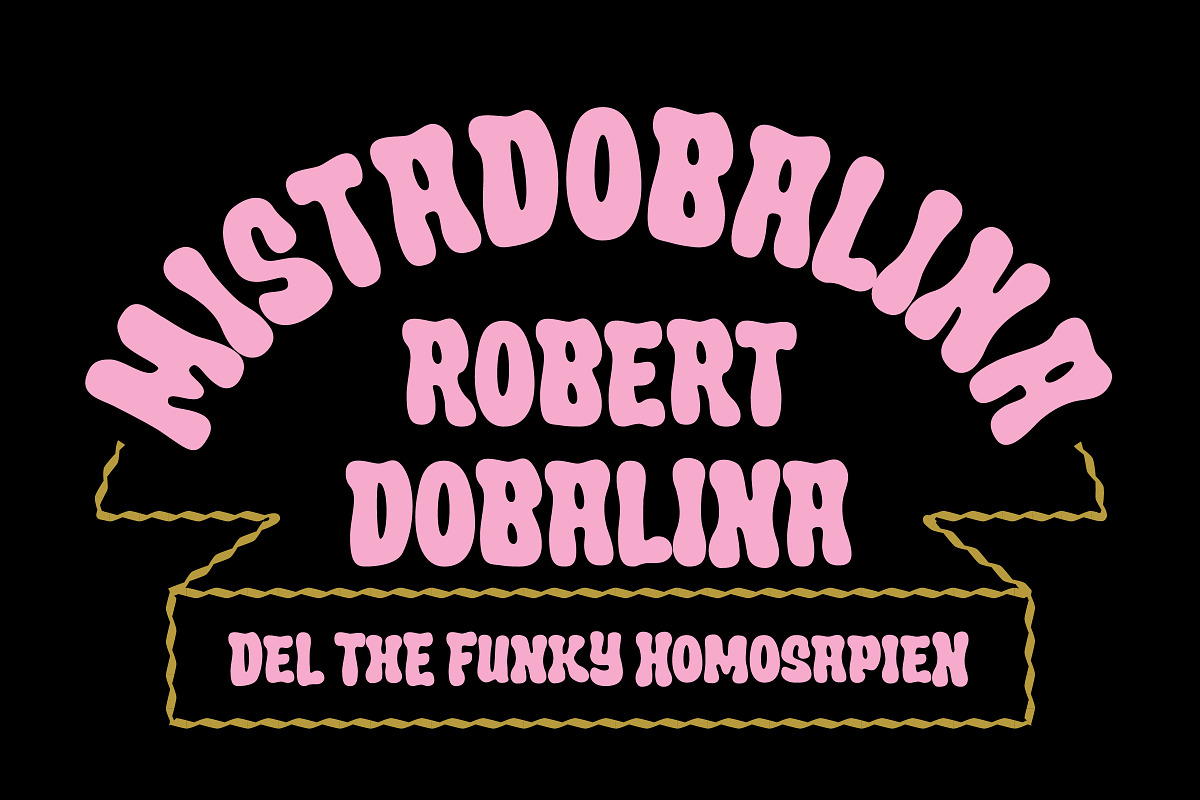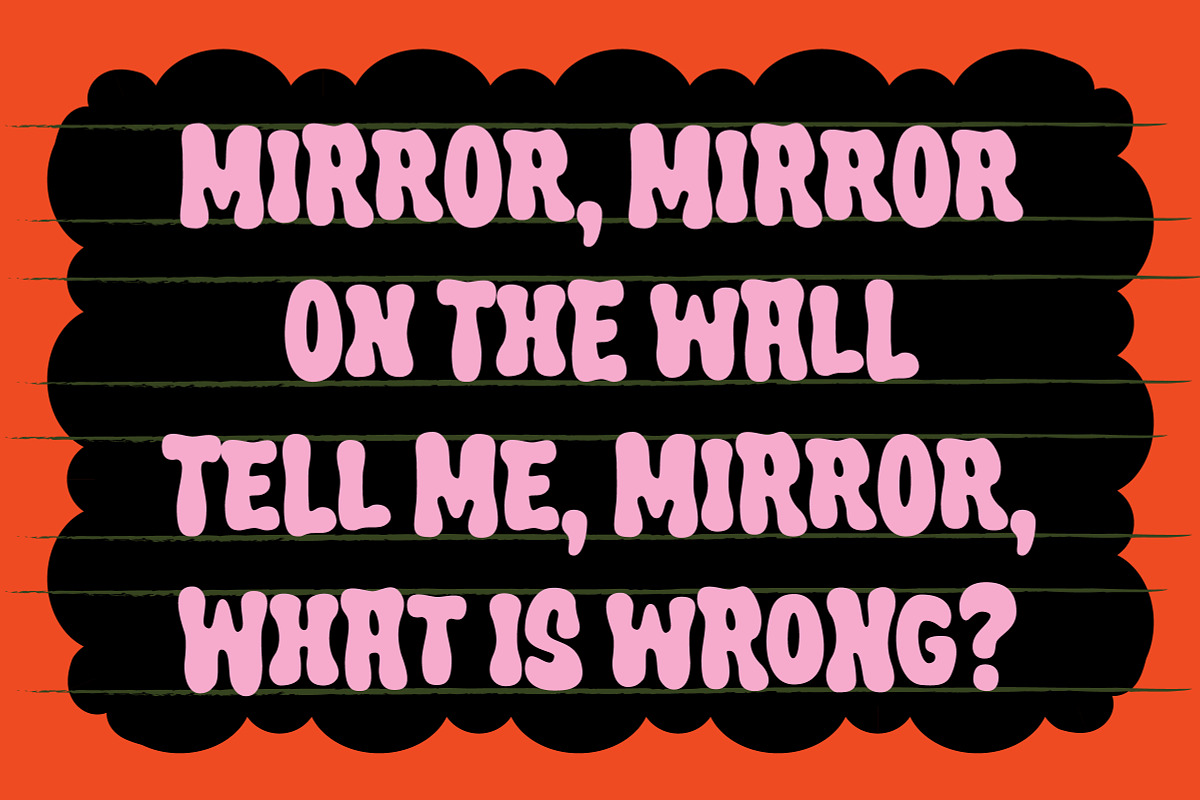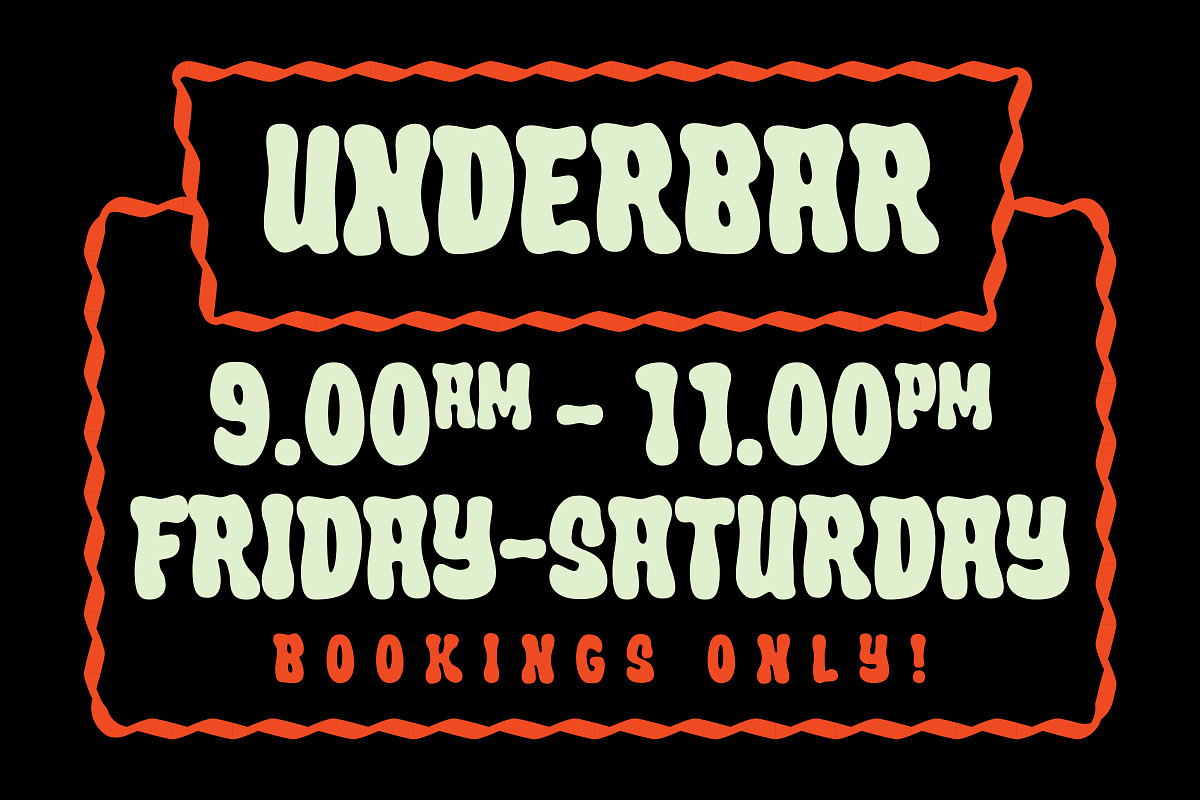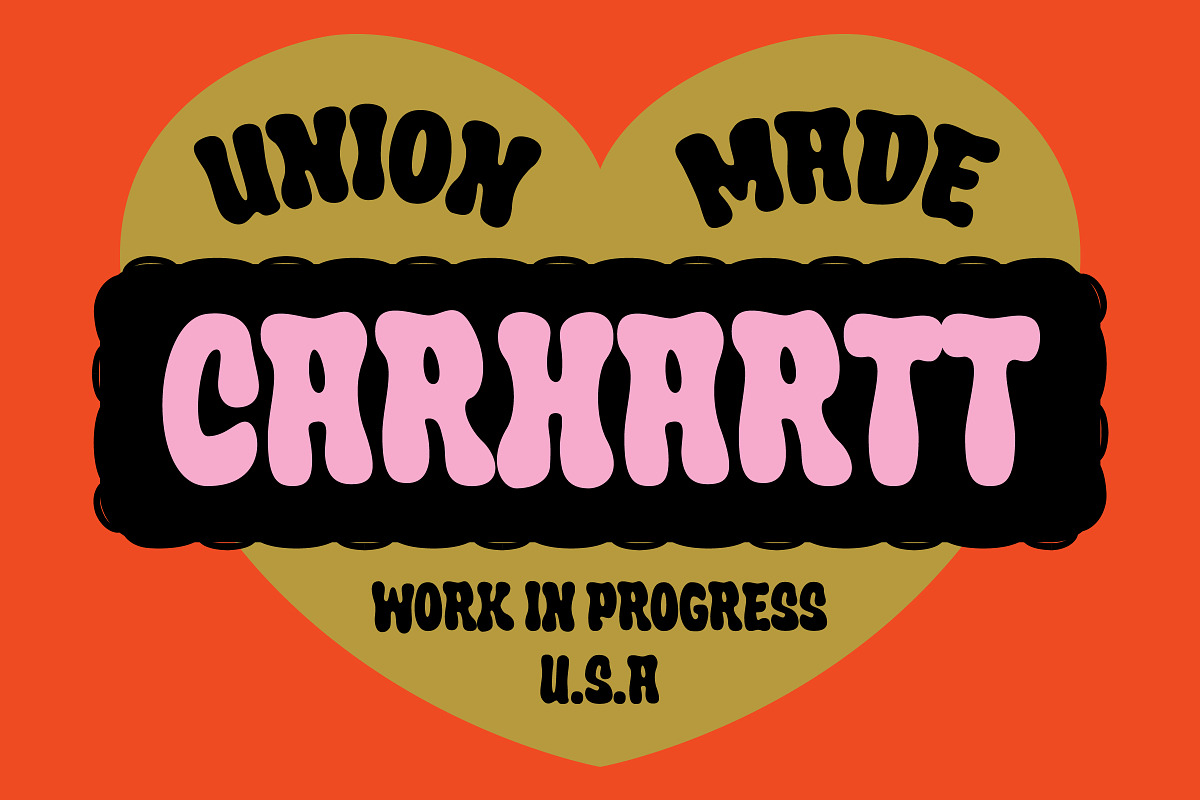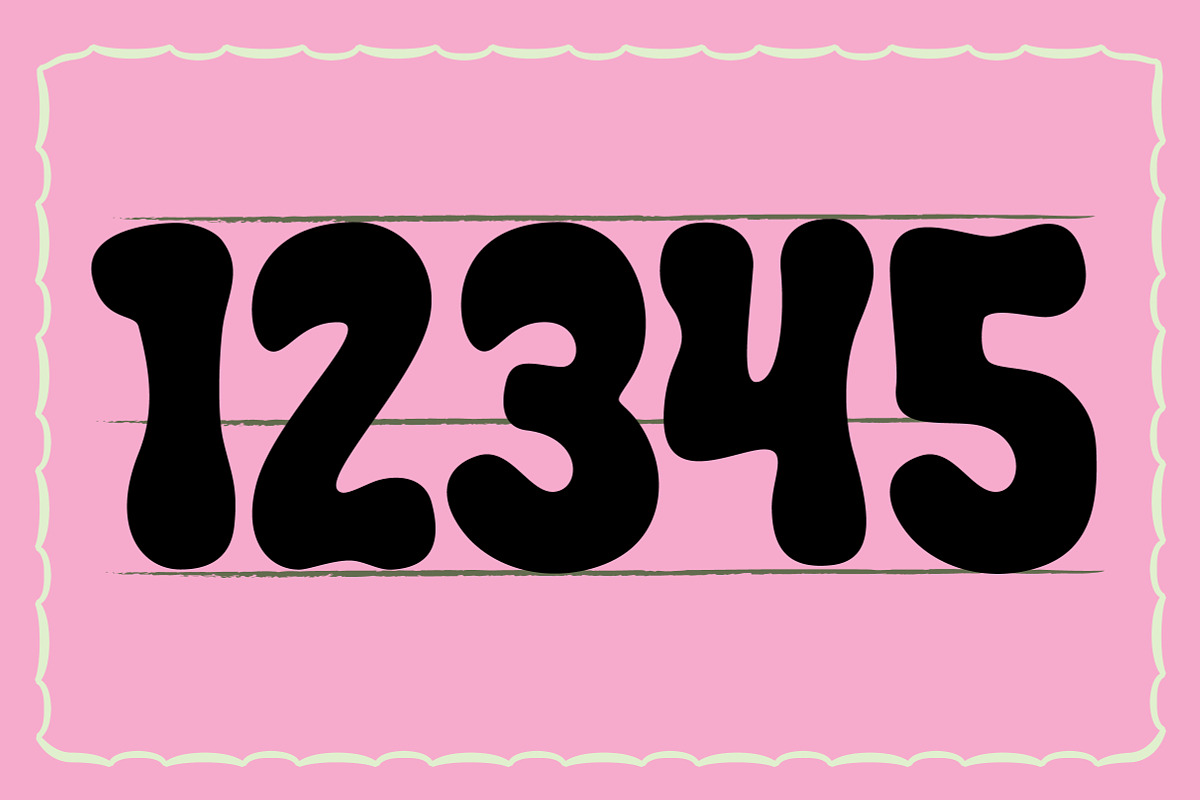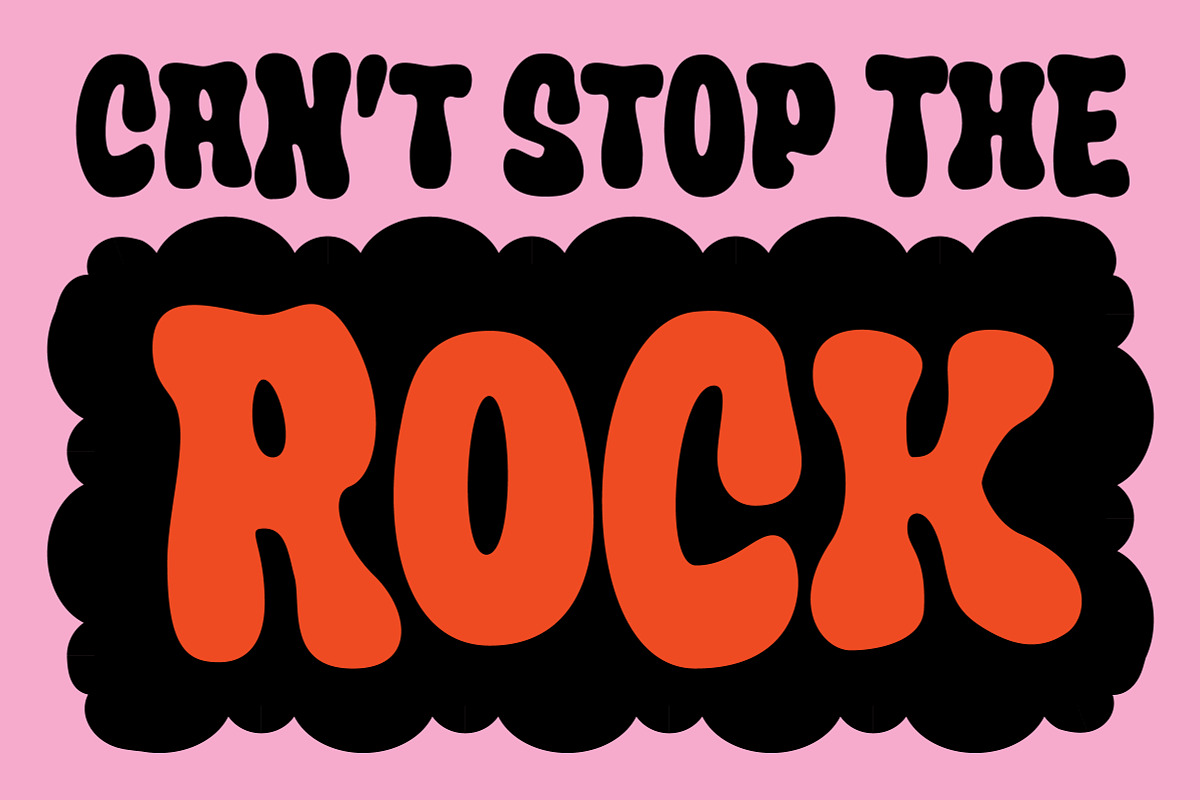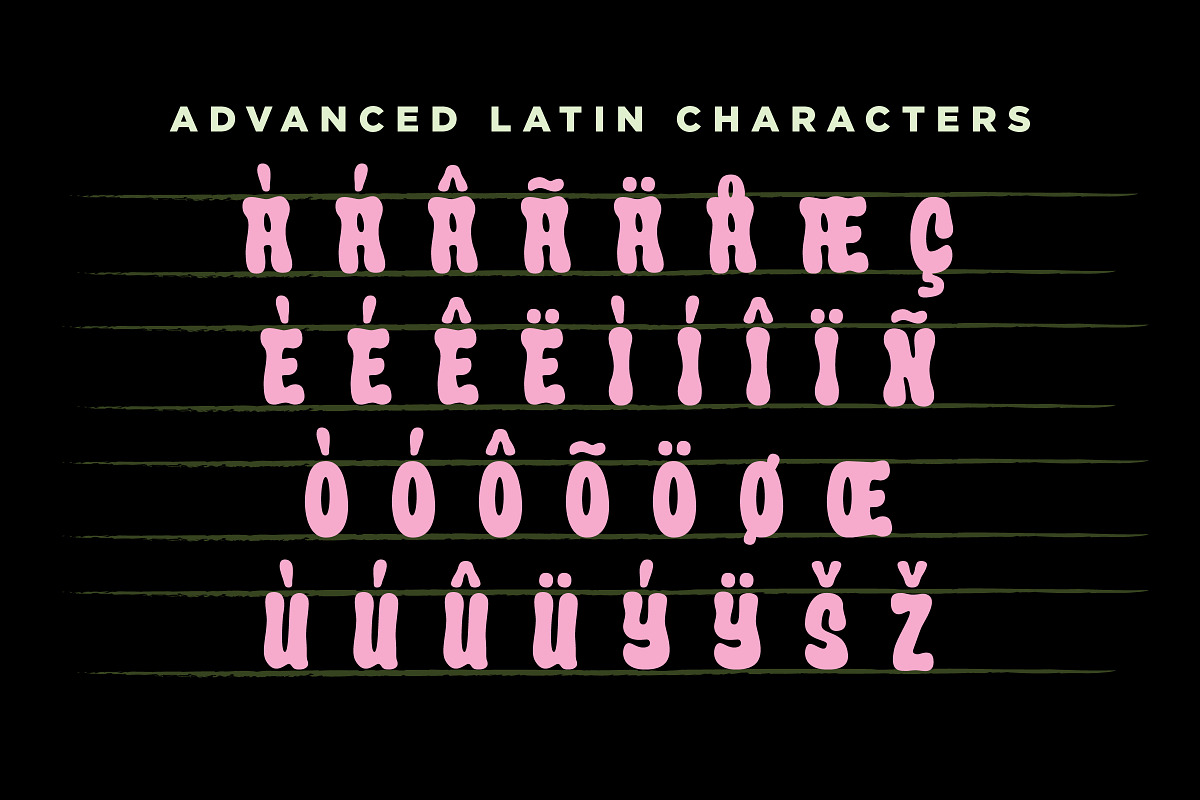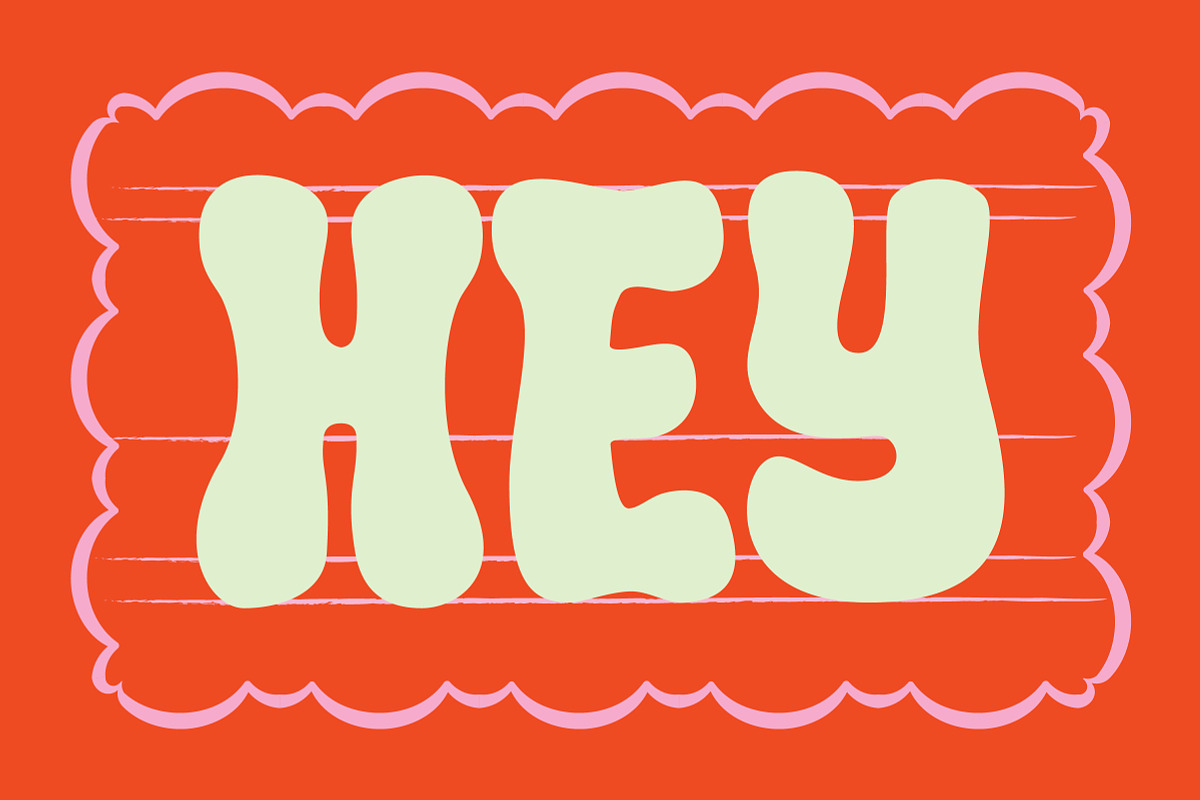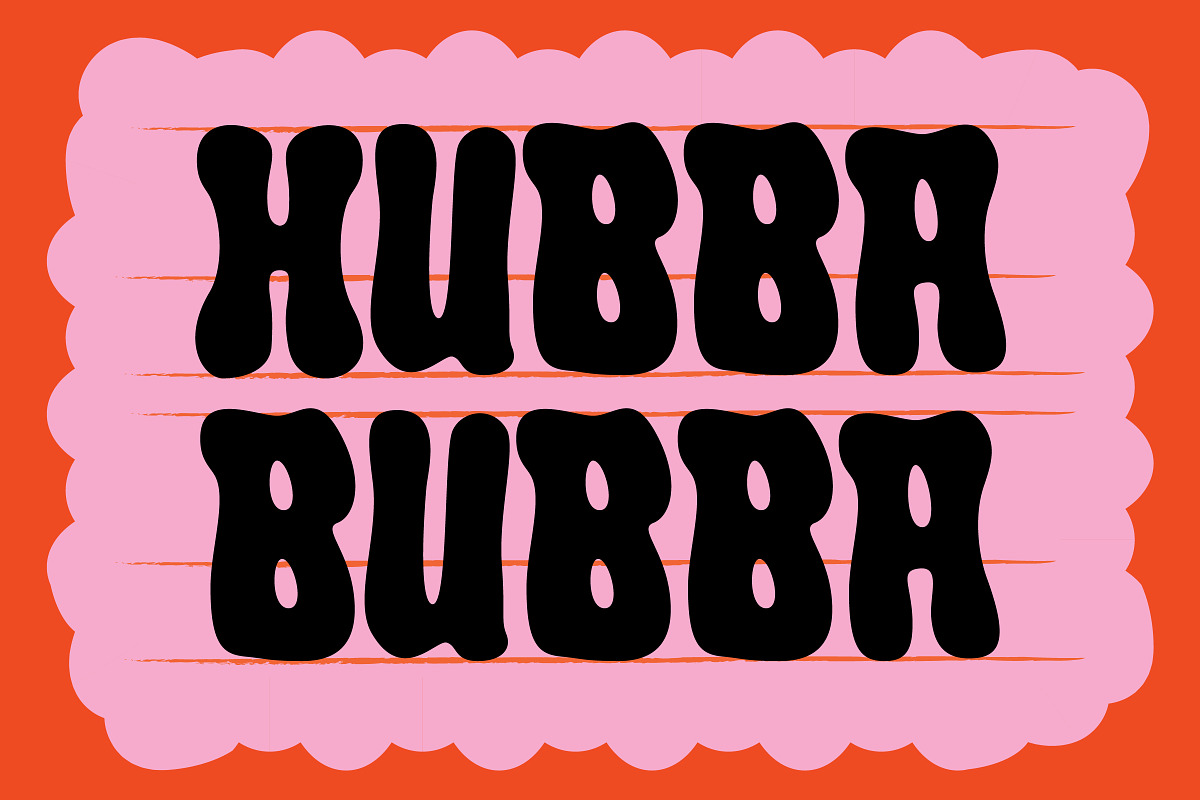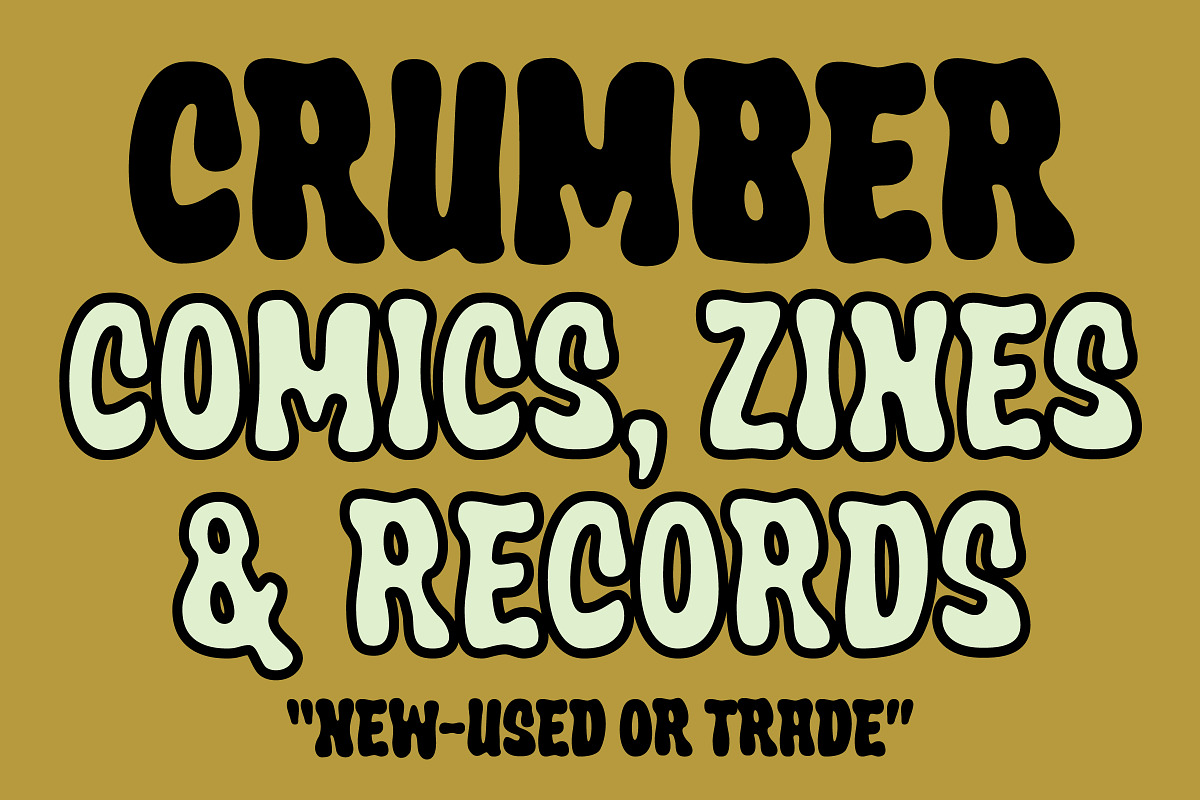
Crumber Bubble Font
CRUMBER is an organic bubble serif typeface that blends playful curves with a loose, hand-drawn aesthetic. Inspired by vintage underground comics and nostalgic bubble gum packaging, every character is packed with warmth, personality and just the right amount of imperfection. Its flowing forms and subtle inconsistencies create lettering that feels authentic and custom rather than rigid or overly polished.
Mix uppercase and lowercase to unlock even more expressive combinations and give your typography a naturally illustrated feel. Perfect for gig posters, album artwork, comics, zines, skate graphics, stickers, branding, packaging and any project that calls for bold, retro-inspired typography with unmistakable character.
Also includes advanced Latin Characters.